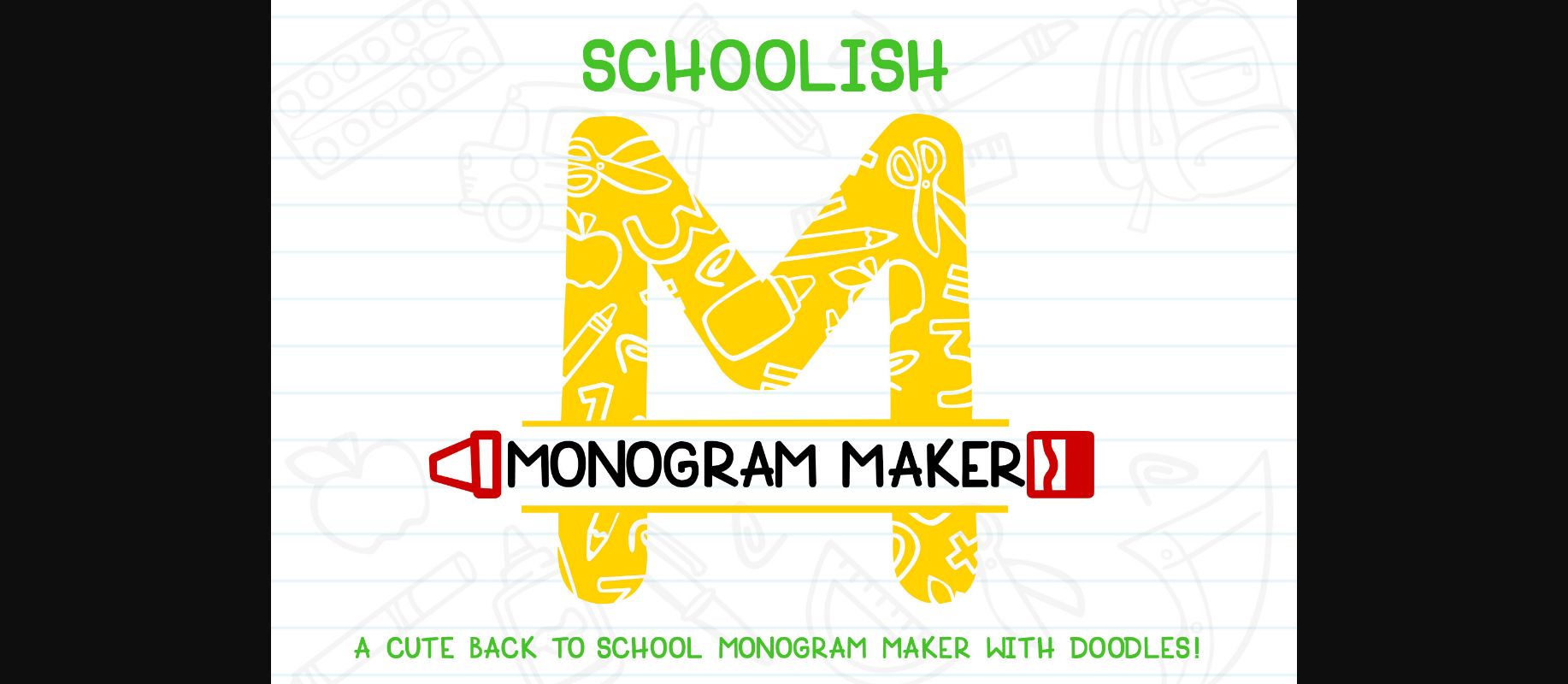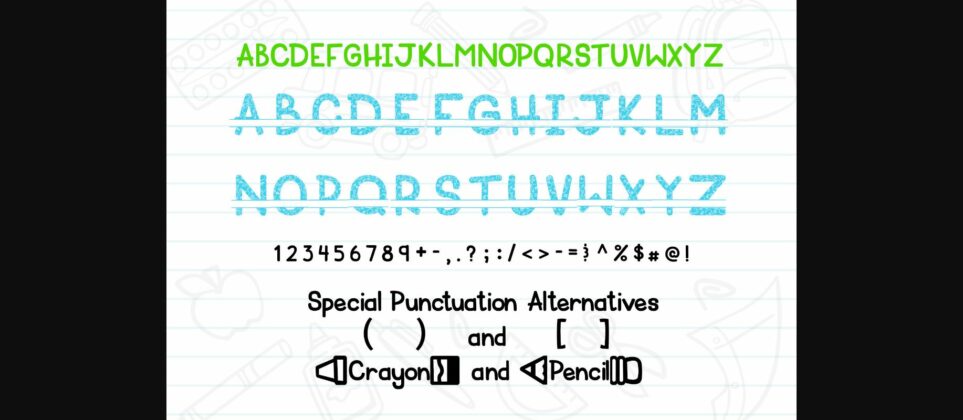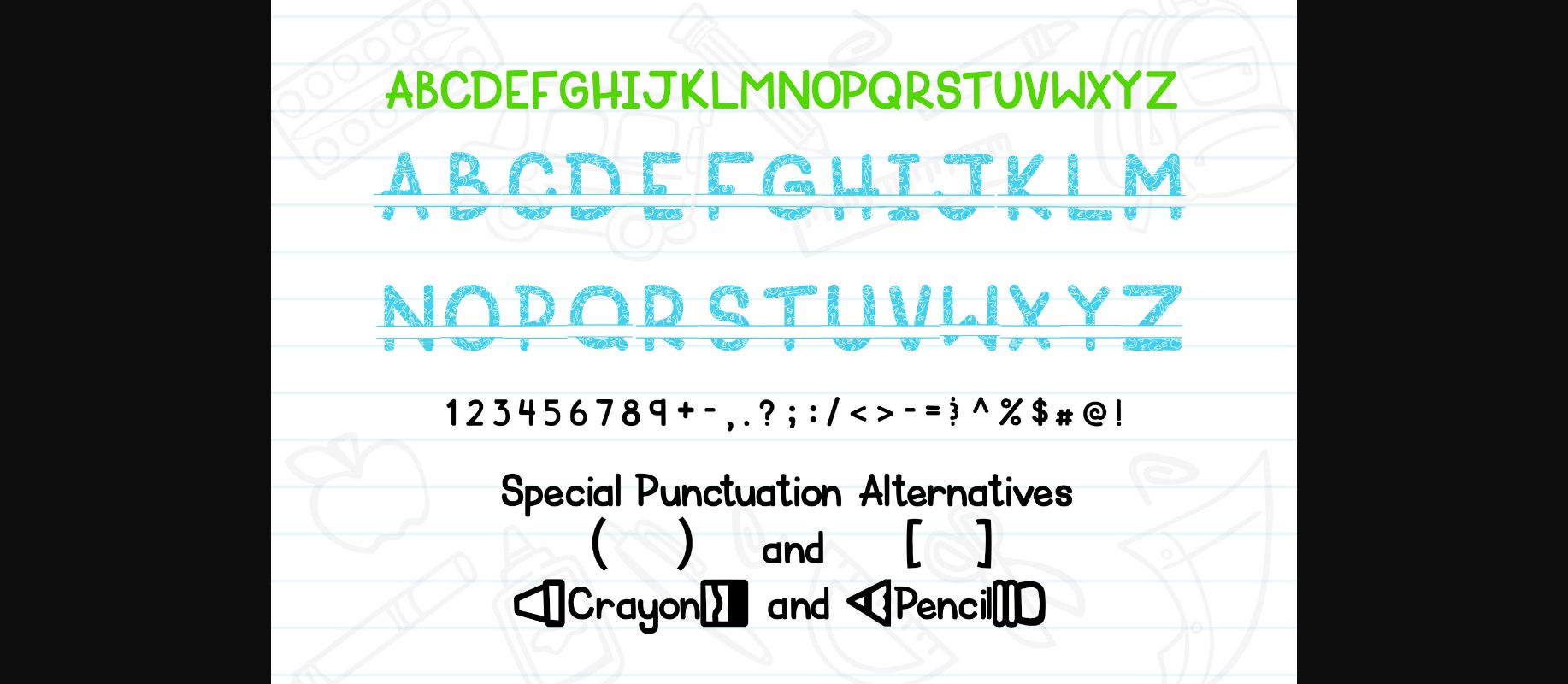
Schoolish Monogram Maker Font
About Schoolish Monogram Maker Font
Schoolish Monogram Maker is a cool, unique, and attractive decorative font. It embodies fun and authenticity is the perfect choice for kids’ activities or school projects and clothing designs.